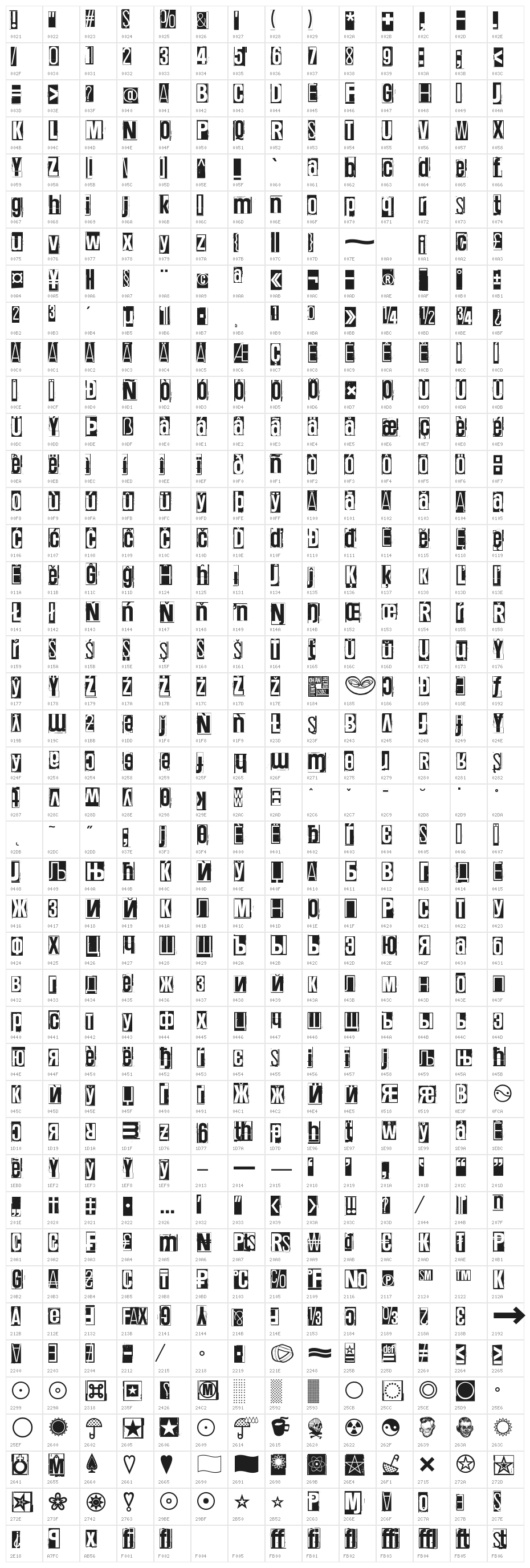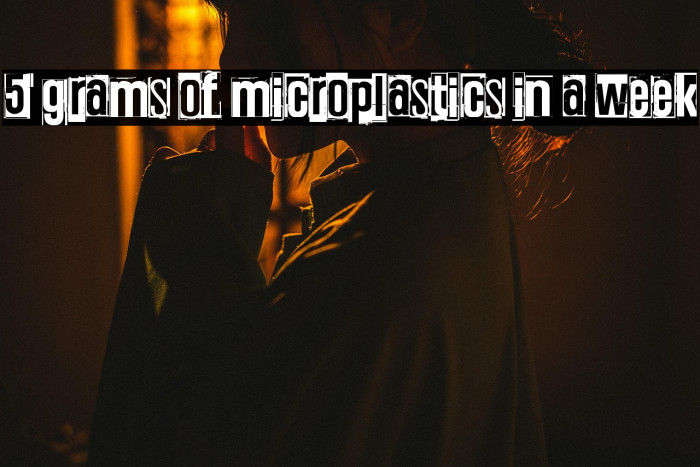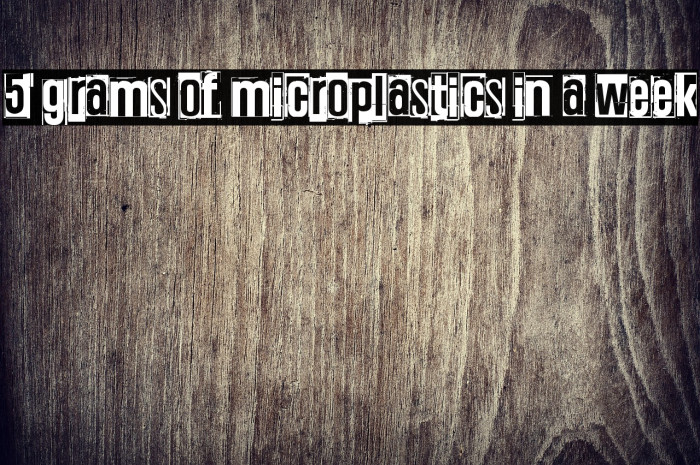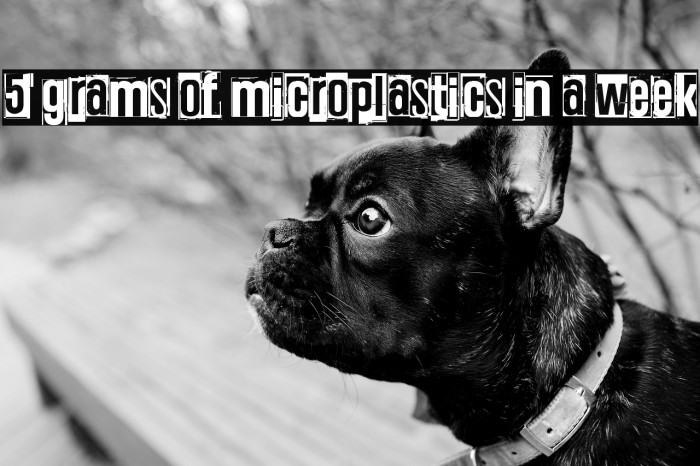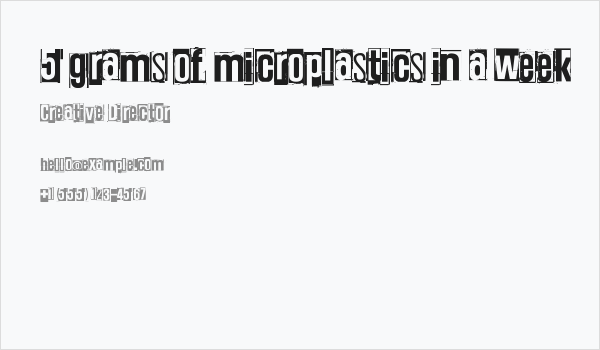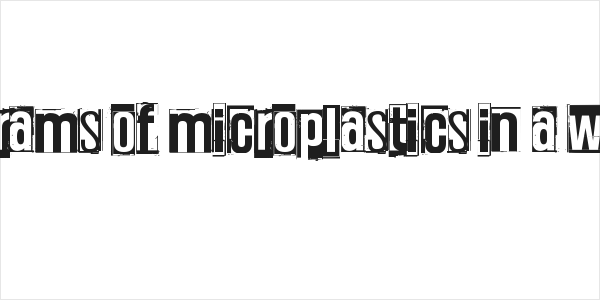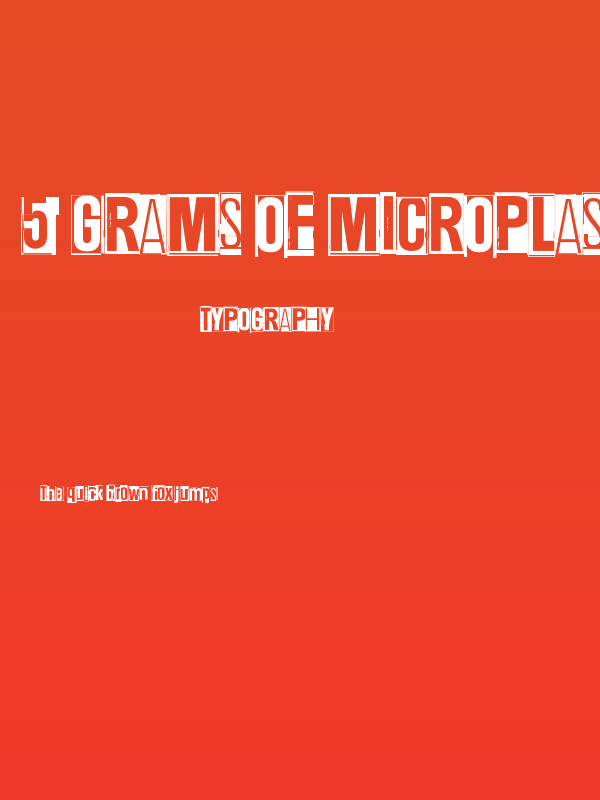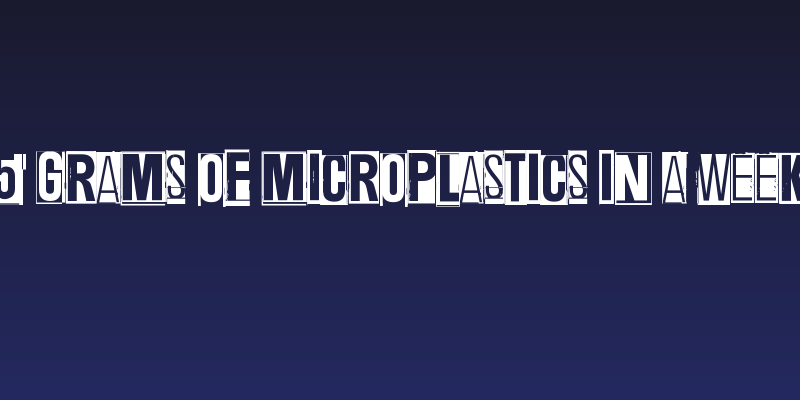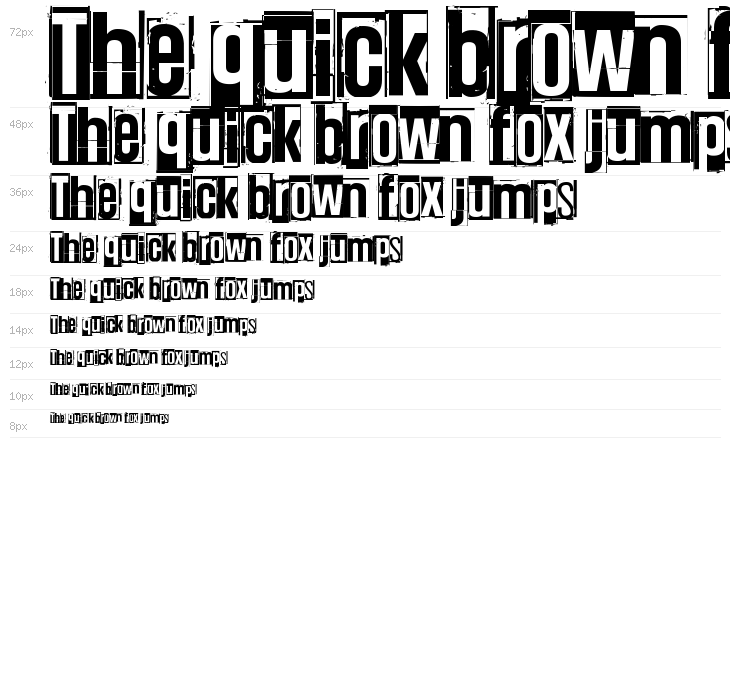
5 grams of microplastics in a week Font
5 grams of microplastics in a week Description
This font features a bold and distressed style, reminiscent of vintage typewriter or letterpress prints. Each character is enclosed within a rectangular border, adding a unique boxed effect. The letters and numbers have a rough, textured appearance, giving them a worn and rugged look. This design choice enhances the font's character, making it ideal for projects that require a retro or industrial aesthetic. The font maintains a consistent weight throughout, with high contrast between the thick strokes and the negative space within the characters. The special characters retain the same distressed and boxed style, ensuring uniformity across all glyphs.
| Proposed Projects | Ideal for posters, album covers, branding for vintage-themed products, or any design needing a rugged, industrial feel. |